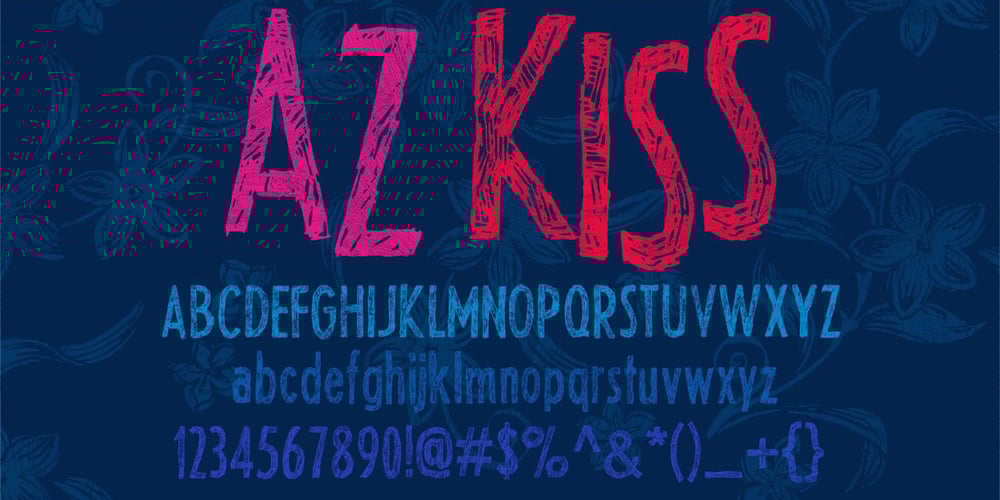
AZ Kiss
AZ Kiss font
AZ Kiss Font Family was designed by published by Artist of Design. AZ Kiss contains 1 styles and family package options. AZ Kiss font is inspired from sketches. This font is designed for use as a worn and antiqued headline or subheadline.